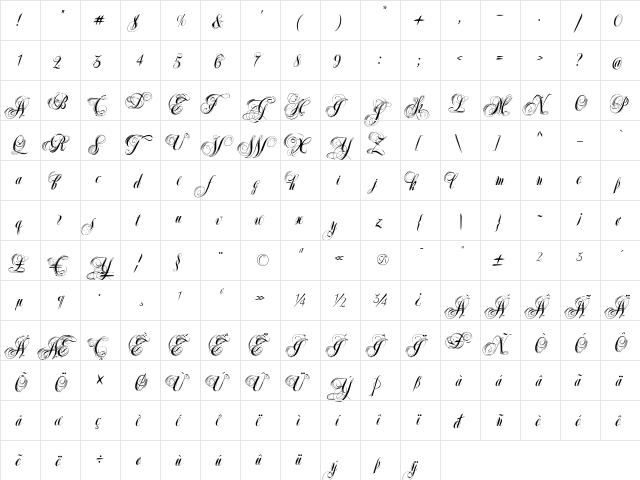
XyloScript Regular
Design Context for XyloScript Typeface
XyloScript brings a calligraphic fluidity to the page — its connecting strokes and expressive curves give it an unmistakably human quality.
Font Pairing: Combine XyloScript with a simple geometric sans for maximum contrast — the tension between flowing curves and clean structure is a classic typographic pairing.
Pro Tip: Pair XyloScript with a clean sans-serif for supporting text. The contrast between fluid script and geometric structure creates an elegant typographic hierarchy.